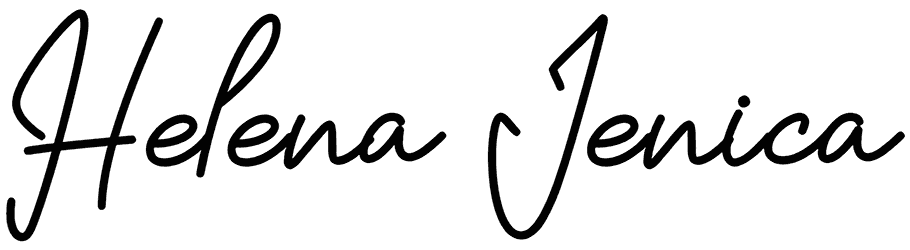
Helena Jenica Font
Looking for an autograph font that looks just as classy as the rest but without losing its readability even one bit? Then Helena Jenica is your best shot. For one thing, this handwritten font doesn’t let you worry about how approachable you come across.
Then again, it’s going to feel so comfortable when you choose this cursive marker font to represent you. Now do you get why it’s so good with spring posters, beach party flyers, music track covers, and whatnot?